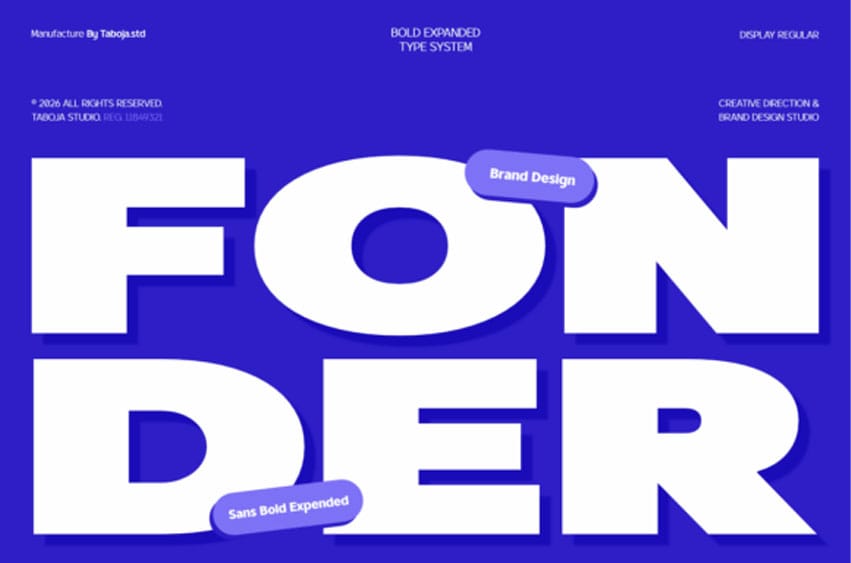
Fonder Font is a bold expanded display typeface built for strong visual impact and modern brand communication.
Designed with wide proportions, confident geometry, and clean construction, Fonder delivers a powerful presence across contemporary design systems.
Created for high-visibility use, Fonder performs exceptionally in headlines, brand identities, posters, packaging, and digital campaigns. Its expanded letterforms and balanced spacing create a loud, confident voice while maintaining clarity and readability at large scales.
With a modern and energetic character, Fonder fits perfectly within creative direction, brand design, and bold typographic layouts where attention and personality are essential.
Fonder includes a complete uppercase set, numerals, and essential punctuation—making it a reliable display solution for studios, agencies, and modern brands seeking a strong typographic signature.
– Bold Expanded Display Typeface
– Strong headline and poster performance
– Clean geometric construction
– Uppercase characters & numerals
– Ideal for branding, campaigns, and creative direction
Fonder is made to be seen — big, bold, and unmistakable.